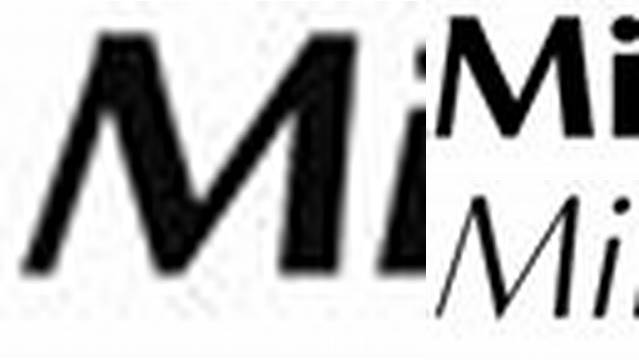
Minerva Modern Black Font: Free Download & Design Tips
Unveiling the Allure of Minerva Modern Black Font
Hey guys, let's dive deep into something truly special today: the Minerva Modern Black Font. This isn't just any font; it's a design statement, a testament to the power of sleek, contemporary typography that can elevate any project from mundane to magnificent. Minerva Modern Black Font embodies a unique blend of timeless elegance and bold modernity, making it an absolute gem for designers, marketers, and anyone looking to make a strong visual impact. Imagine a font that feels both classic and cutting-edge, commanding attention without shouting – that’s precisely what you get here. Its strong, clean lines and robust character give it an unparalleled versatility, fitting seamlessly into a vast array of design contexts, from high-fashion branding to minimalist web interfaces. The beauty of the Minerva Modern Black Font lies in its ability to adapt and transform, lending a sophisticated touch to professional documents, a trendy edge to social media graphics, and an authoritative voice to corporate identities. For those of you who appreciate fonts that marry form with function, and style with substance, then you're definitely going to want to pay close attention. It’s a workhorse font, but with the grace of a thoroughbred, ensuring your message is not only seen but truly felt and understood. When you consider the impact a well-chosen font has on readability, brand perception, and overall aesthetic appeal, it becomes clear why something as meticulously crafted as Minerva Modern Black Font stands out in a crowded digital landscape. We're talking about a font that can literally change the game for your next creative endeavor, offering that coveted blend of distinctiveness and universal appeal. So, whether you're a seasoned graphic designer or just starting out on your creative journey, getting to know and potentially downloading the Minerva Modern Black Font for free is a step you won't regret taking. It's truly a typeface that speaks volumes.
The Essence of Modern Black Typography in Design
Let’s chat about the essence of modern black typography, and how fonts like Minerva Modern Black Font truly embody this powerful design philosophy. Modern black typography isn't just about using a dark, heavy typeface; it’s about making a deliberate, confident statement. It’s about leveraging the visual weight and gravitas of these fonts to create impactful, memorable designs that resonate with audiences on a deeper level. Think about it: a strong, solid black font like Minerva Modern Black immediately conveys a sense of authority, sophistication, and no-nonsense clarity. It cuts through the noise, demanding attention without relying on flashy colors or intricate embellishments. This approach is particularly effective in today's fast-paced digital world, where clean, legible, and assertive typography is key to capturing and retaining user engagement. The elegance of modern black fonts lies in their simplicity and their ability to stand on their own, often becoming the focal point of a design. They work wonders in branding, where a company wants to project an image of reliability, quality, and forward-thinking innovation. From sleek minimalist logos to bold editorial spreads, the influence of modern black typography, exemplified by the likes of Minerva Modern Black Font, is undeniable. It provides a strong foundation for any visual communication, allowing other design elements to complement rather than compete with the text. This style of typography also excels in creating contrast and hierarchy, making important information pop and guiding the reader's eye effortlessly through the content. When you opt for a modern black font, you're not just picking a style; you're adopting a mindset that prioritizes clarity, strength, and a touch of understated luxury. It’s a design choice that speaks volumes about attention to detail and a commitment to timeless aesthetic principles, ensuring your message carries maximum weight and impact, all thanks to typefaces like Minerva Modern Black Font.